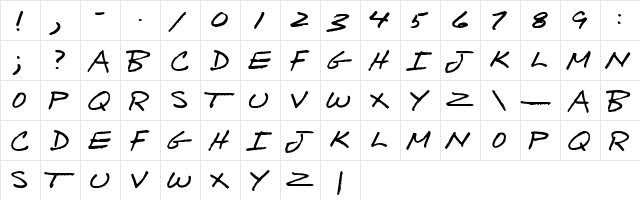
Bigtime Regular Font Preview
Bigtime Regular
Bigtime Regular Font Details
| Designer | Bob Frantz |
Design Context for Bigtime Typeface
Bigtime is a composed and adaptable typeface that performs quietly and consistently across a wide range of design contexts.